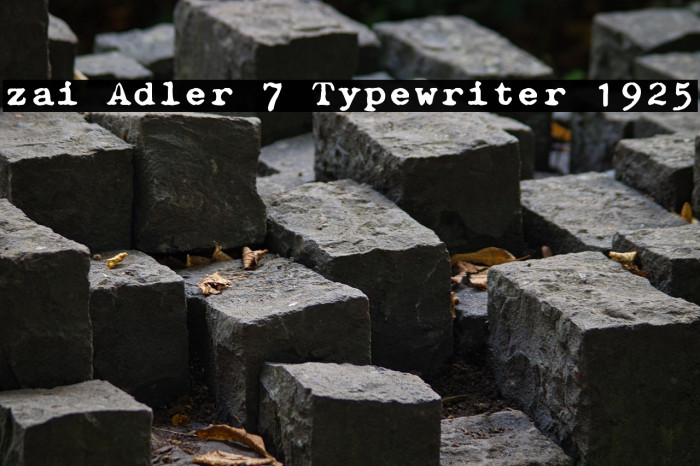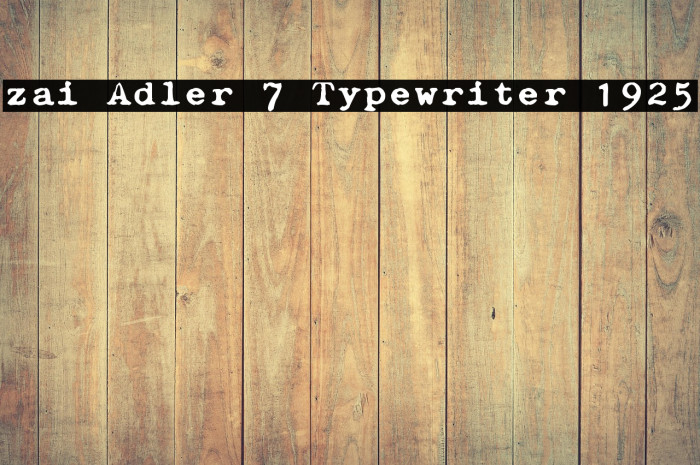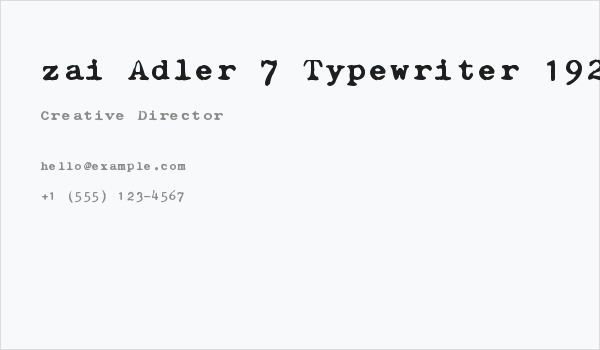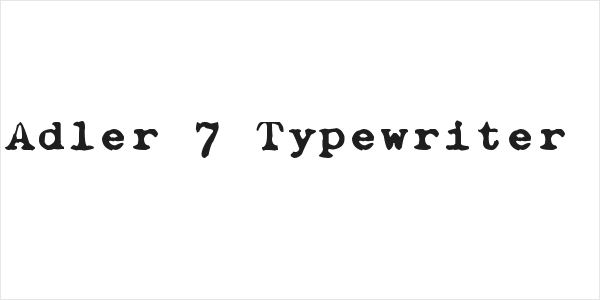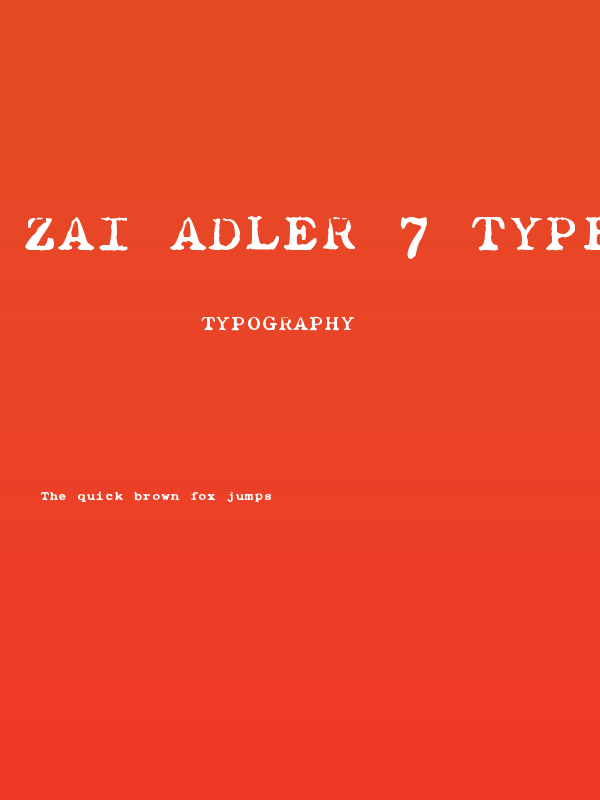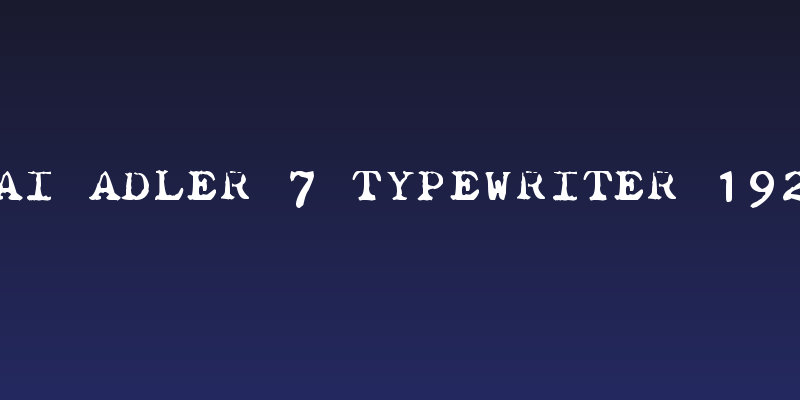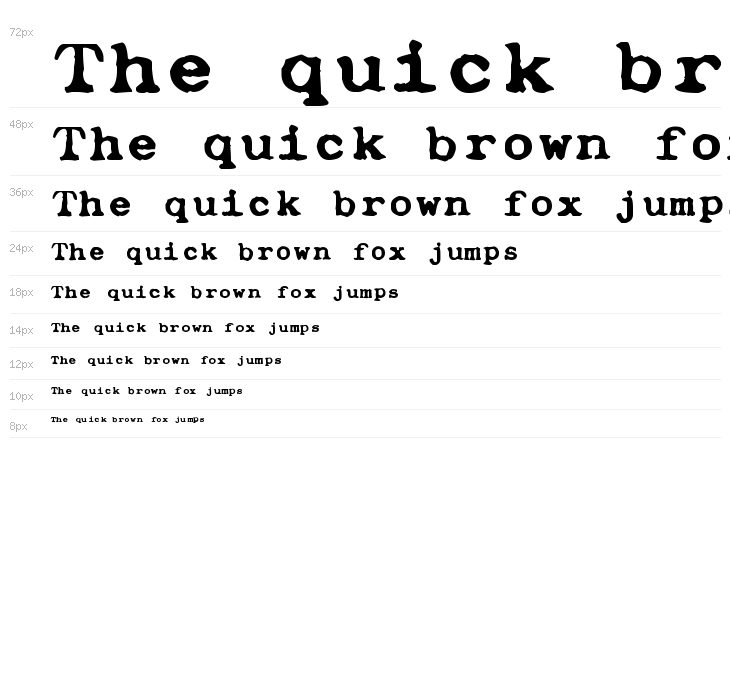
zai Adler 7 Typewriter 1925 Font
zai Adler 7 Typewriter 1925 Description
This typewriter-style font exudes a vintage charm reminiscent of early 20th-century typewriters. Each character is distinct with slightly irregular edges, giving it an authentic, worn look. The uppercase and lowercase letters maintain a consistent style, with rounded edges and a slightly distressed appearance. Numbers and special characters follow the same aesthetic, ensuring a cohesive look across all text. The font's unique texture and character make it ideal for projects that aim to evoke nostalgia or a retro feel.
Overall StyleVintage
Use CaseLogos, Headlines, Decorative text
Proposed ProjectsIdeal for vintage-themed designs, retro posters, book covers, and branding that seeks a nostalgic touch.